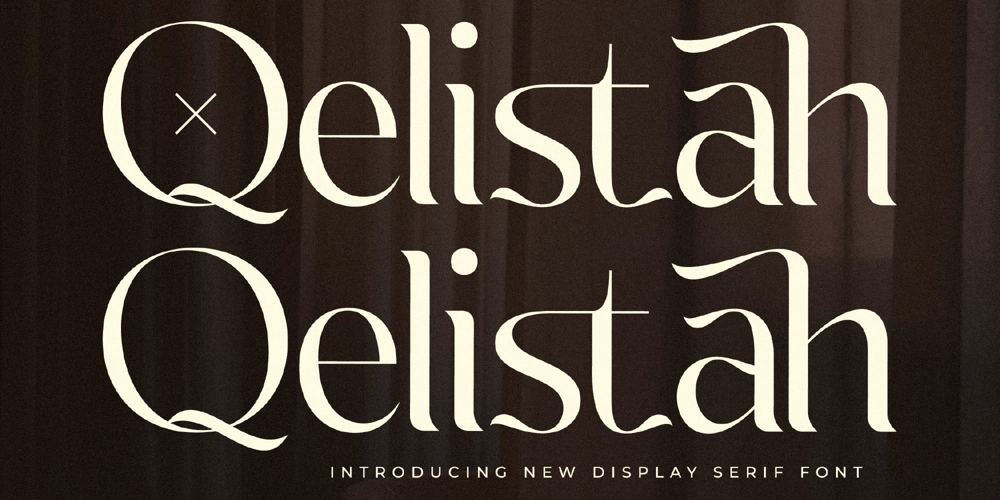
Qelistah Font Family was designed by Heru Utama Putra and published by Letterena Studios. Qelistah contains 2 styles and family package options. Qelistah is a modern and classic typeface that has it’s own unique style and modern look.This typeface is perfect for an elegant & luxurious logo, book or movie title design, fashion brand, magazine, clothes, lettering, quotes, and so much more.